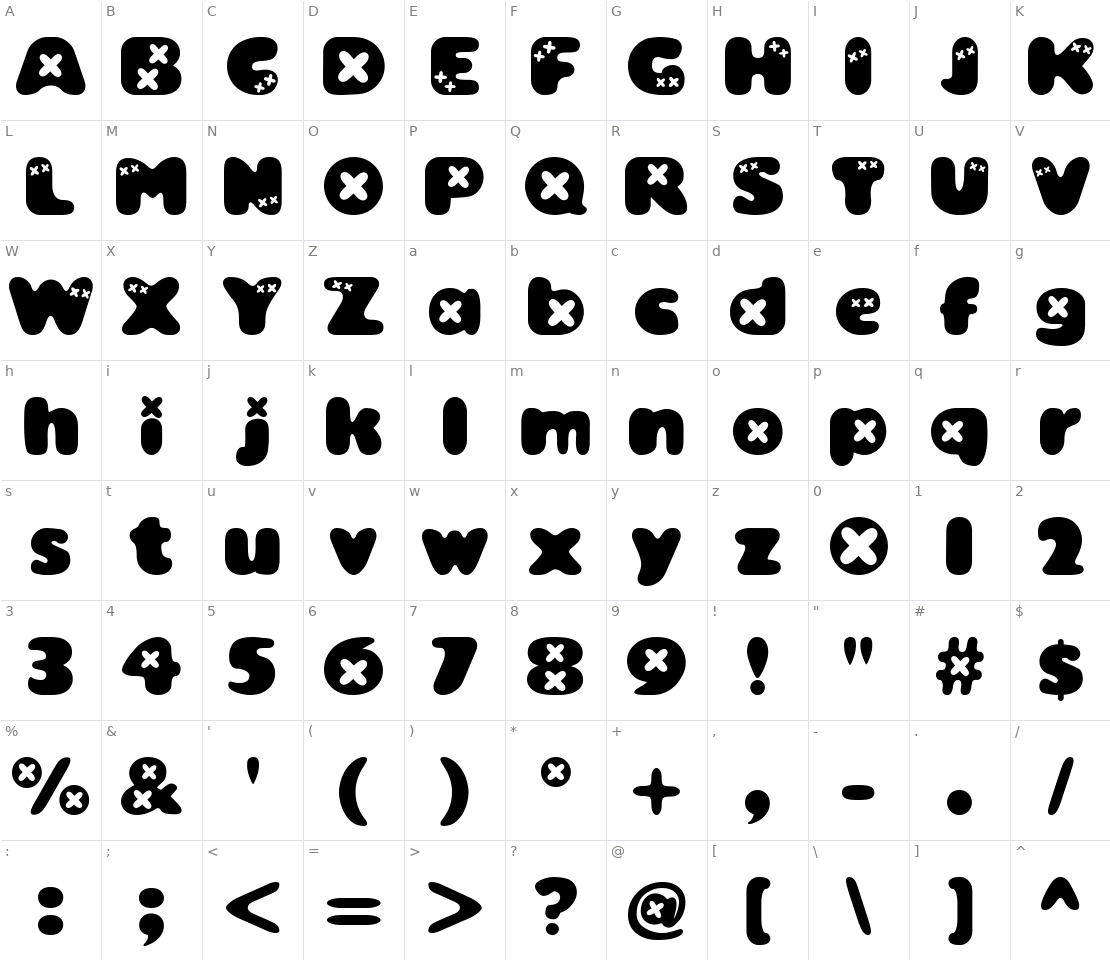
Bambino
Bambino is a heavy, rounded novelty face from Tomoyuki "Tee-Wat" Watanabe with soft, pillowy letterforms that radiate childlike energy. The bold strokes and exaggerated curves give it a cartoonish warmth, making it a natural pick for children's books, toy packaging, game titles, and playful branding. Strictly a headline and display face, where its chunky personality can do the heavy lifting.